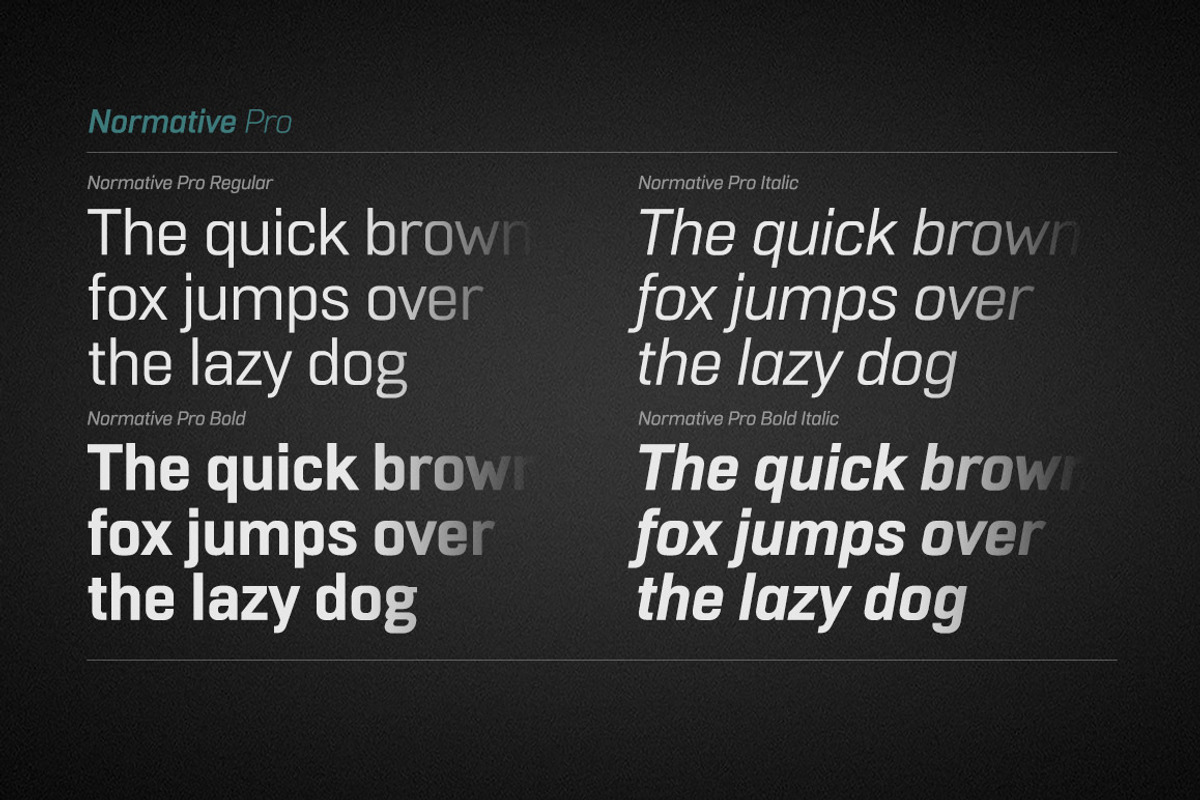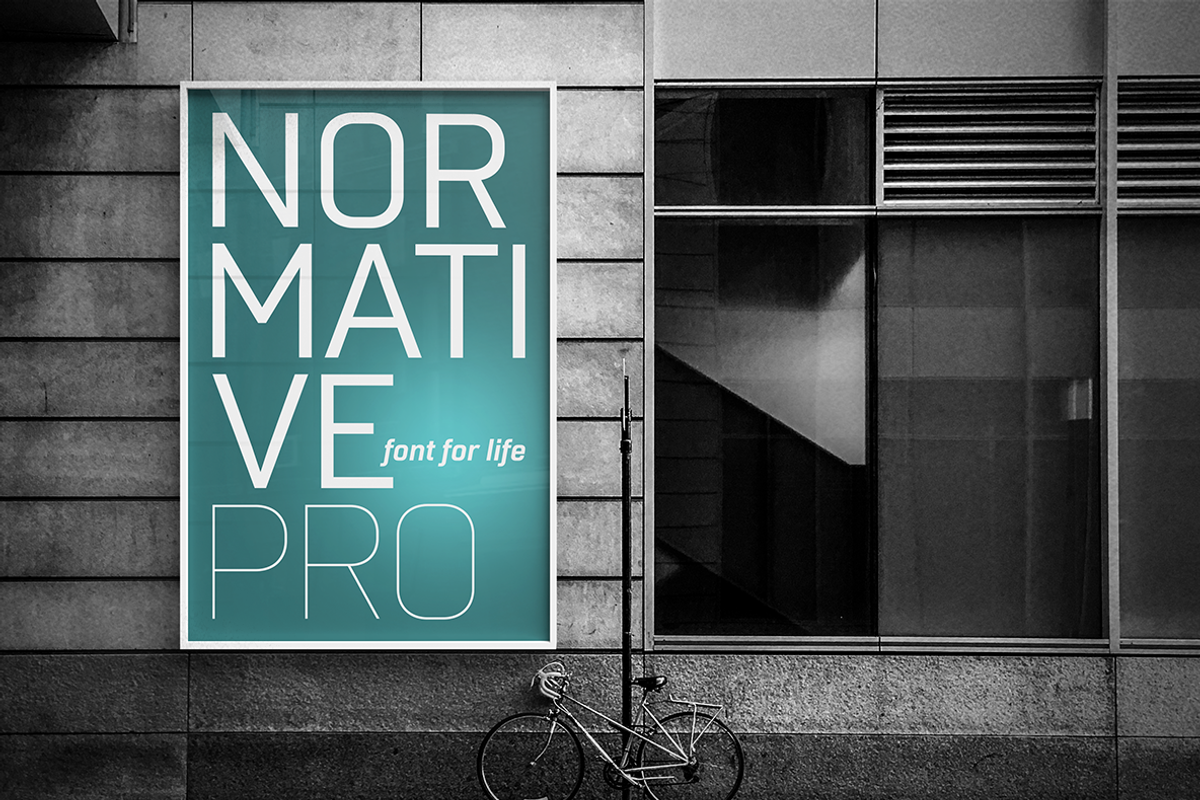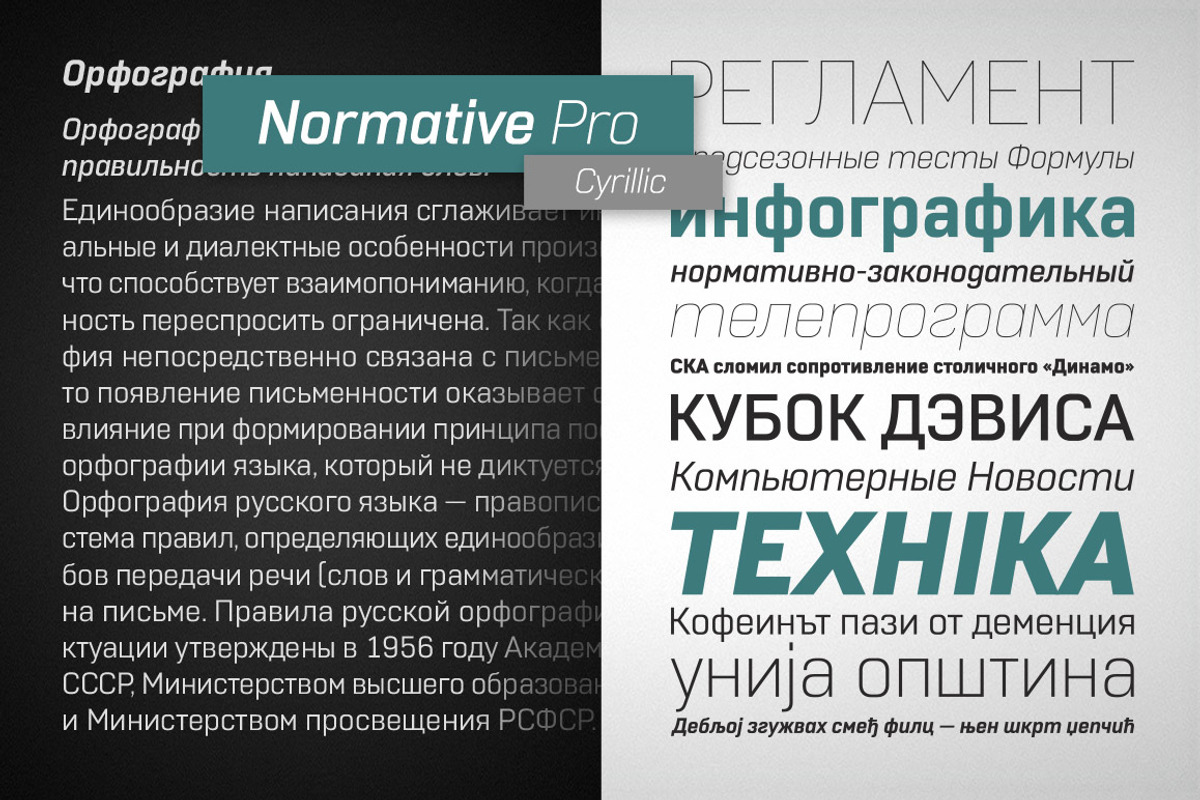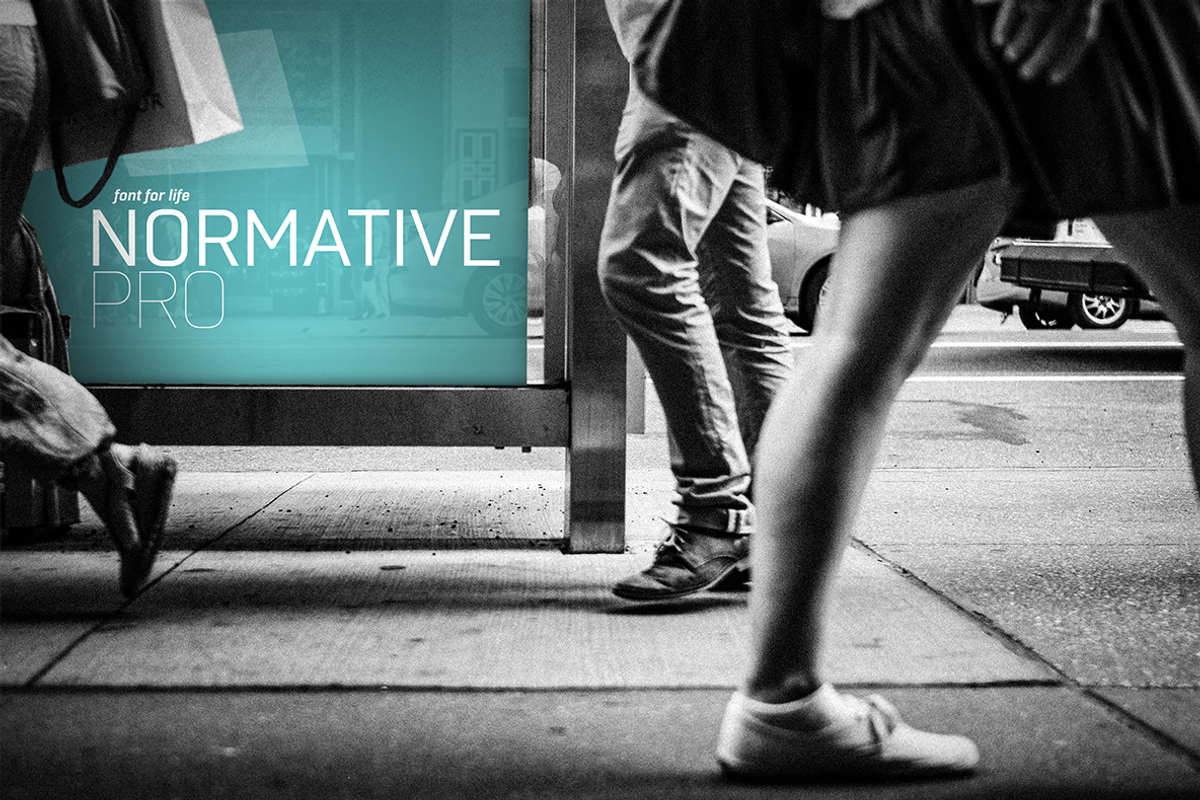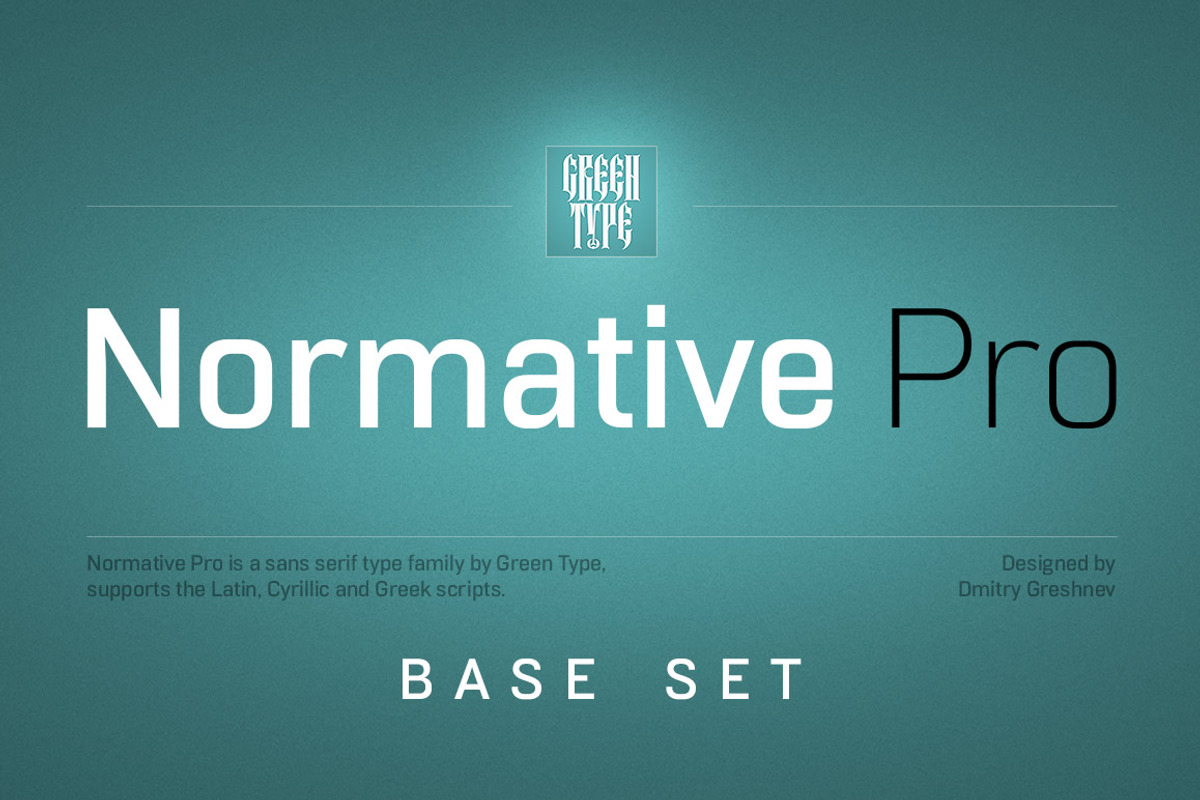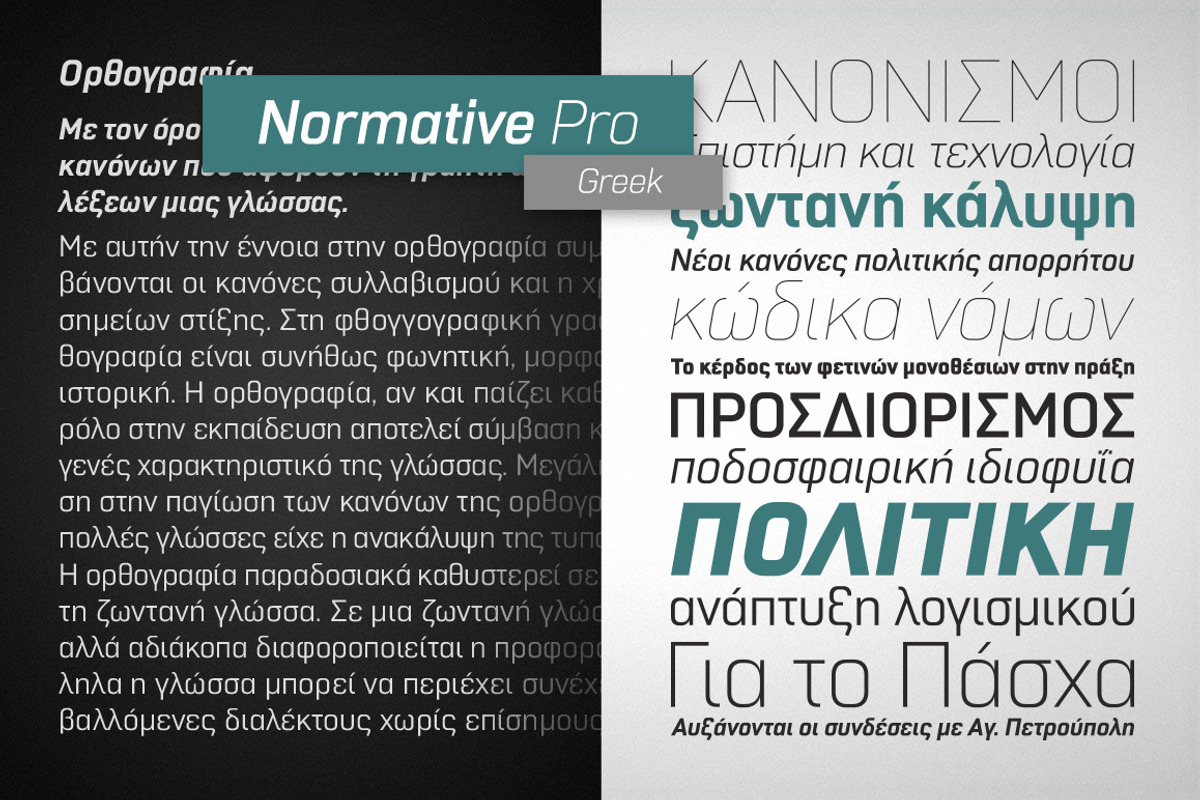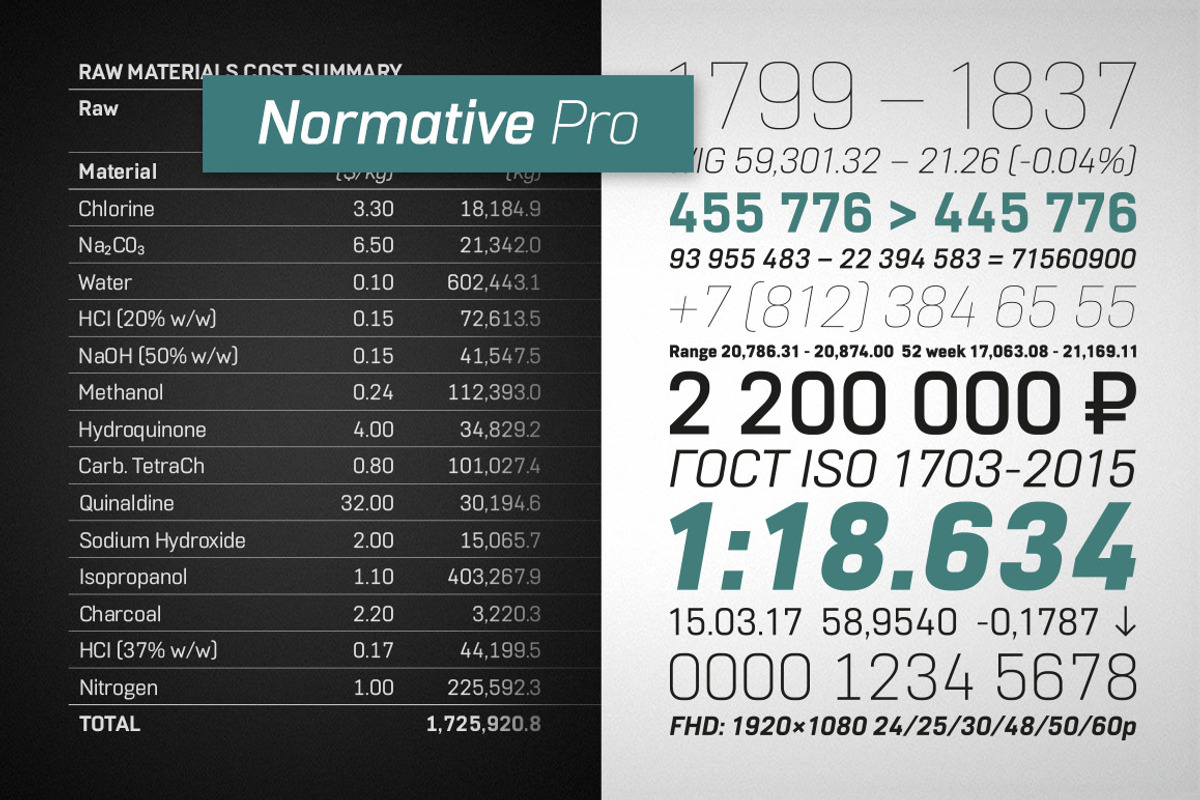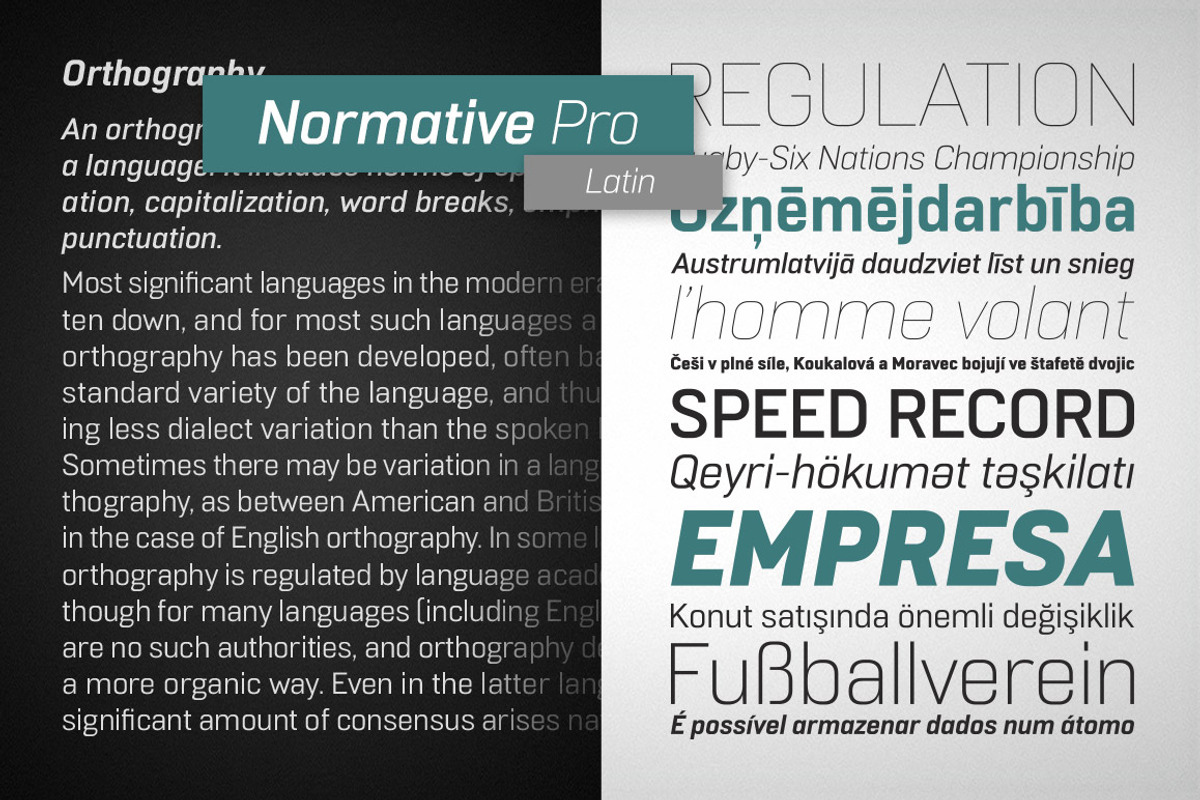
Normative Pro - 4 fonts
Normative Pro - 4 fonts by Green Type is a font selected for branding, posters, packaging, typography.
- Normative Pro is a sans-serif font family includes a 12 styles (6 weight and italics), support Latin, Cyrillic, Greek, Eastern European, Bal
- Base Set includes a only 4 styles: Regular, Italic, Bold, Bold Italic.
Normative Pro - 4 fonts by Green Type fits naturally into Branding, posters, packaging, typography.